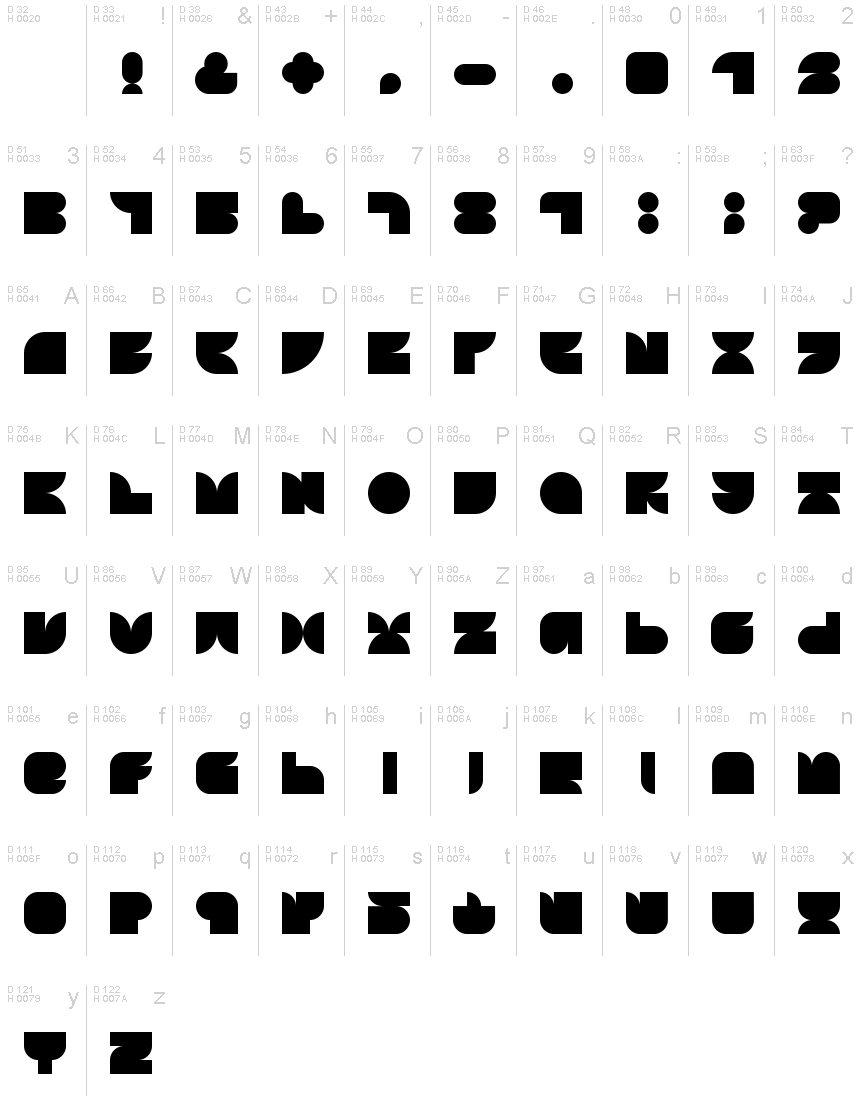
Code Regular
The Code font, crafted by Zhiyao Zhang, is a bold display font that captivates with its techno flair and expanded design. Transforming complex password structures into a visually compelling art form, Code blurs character shapes with geometric precision, achieving a decorative edge that stands out in any digital space. Its distinct style makes it ideal for modern interfaces, tech branding, and innovative editorial projects.
Perfect for those who seek a free font download to elevate creative ventures, Code brings an avant-garde touch to headlines and digital environments. Its unique visual presence promises to leave a memorable impression while seamlessly integrating into various design contexts. Embrace the future of typography with the distinctive allure of the Code font.